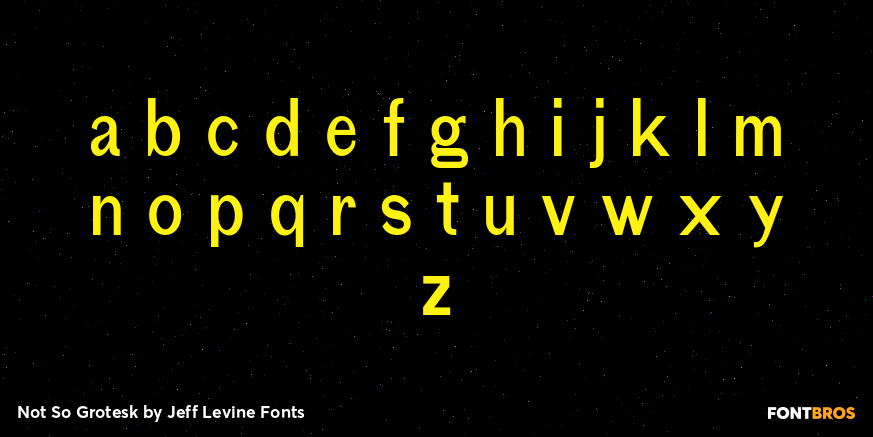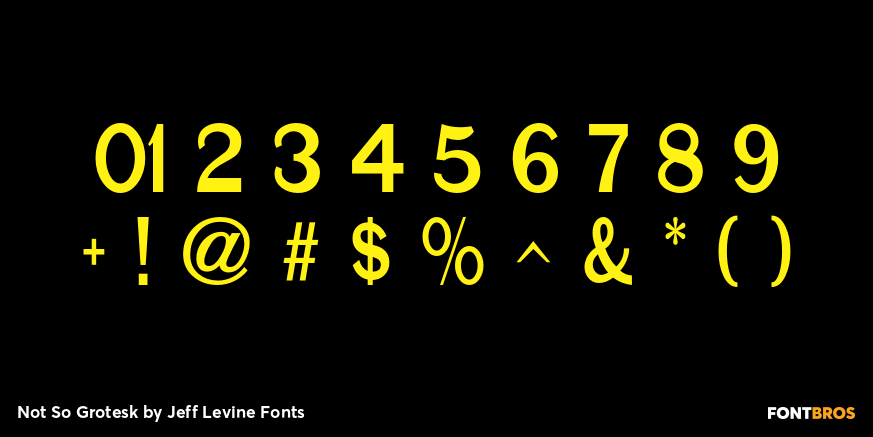
Not So Grotesk
A circa-1920s book on lettering entitled 'Book of Alphabets” by Regan Publishing displayed an example of a Grotesk typeface (a popular style of sans serif of the time).
This design was re-drawn digitally as Not So Grotesk JNL and is available in four varieties - regular, oblique, condensed and condensed oblique.
Not So Grotesk JNL is the perfect companion font family to use alongside Simply Grotesk JNL.